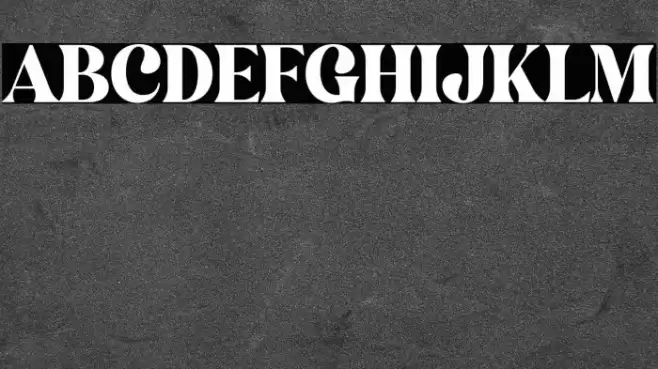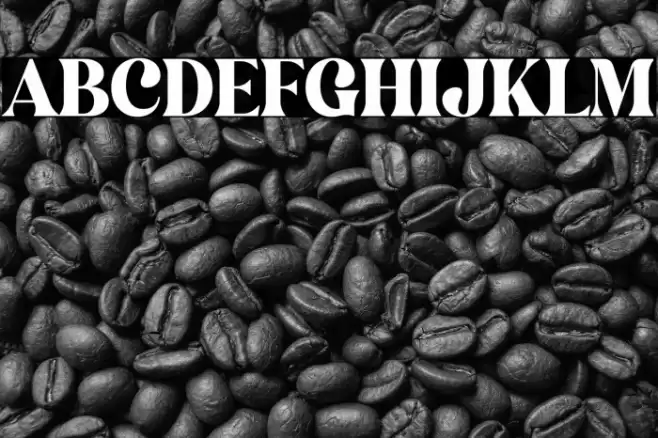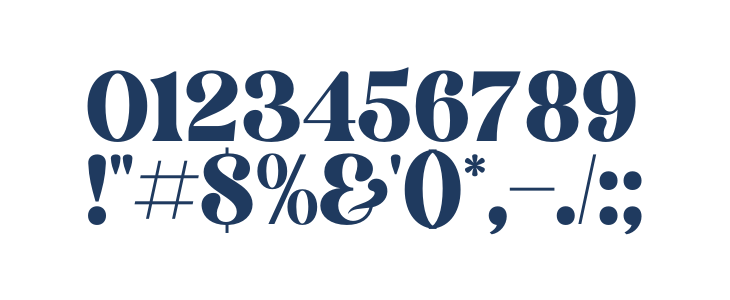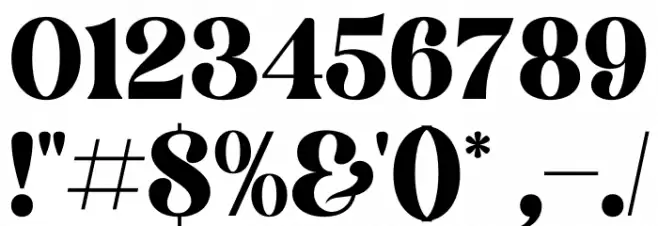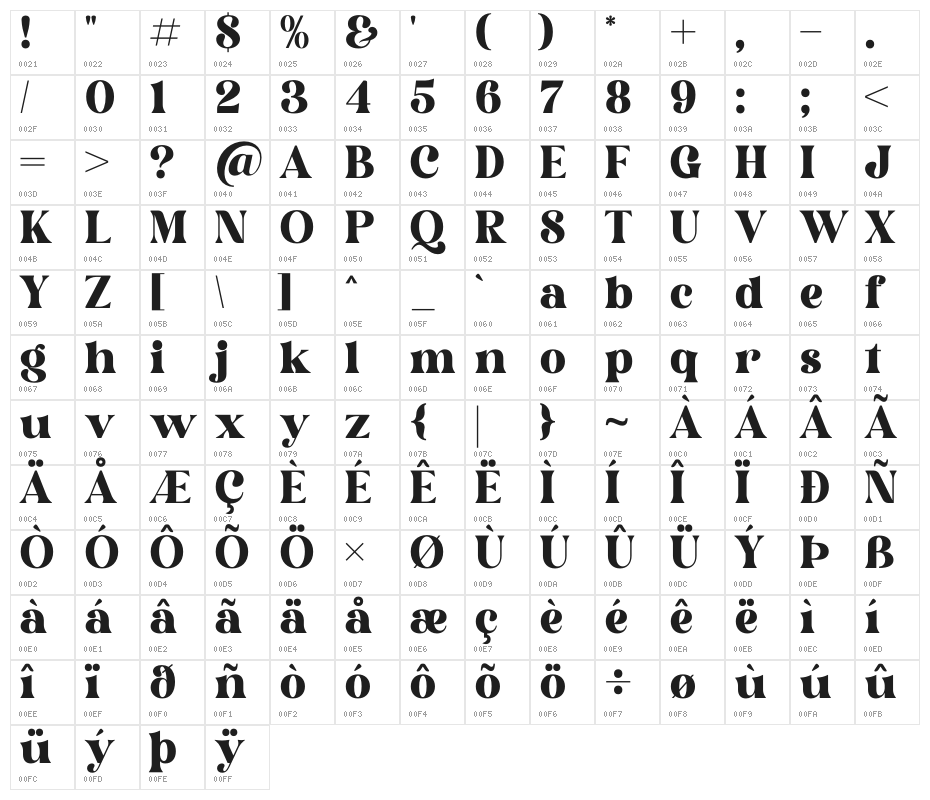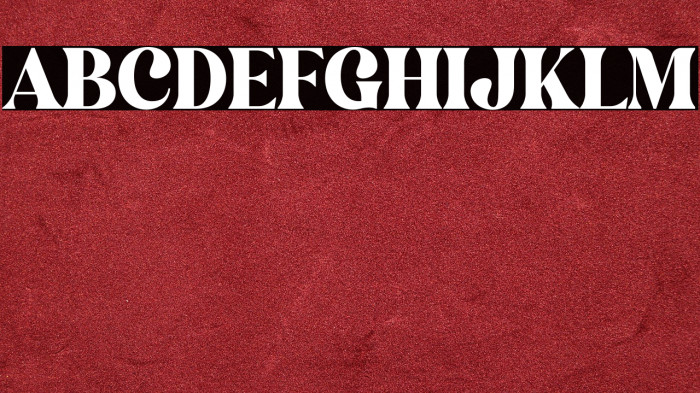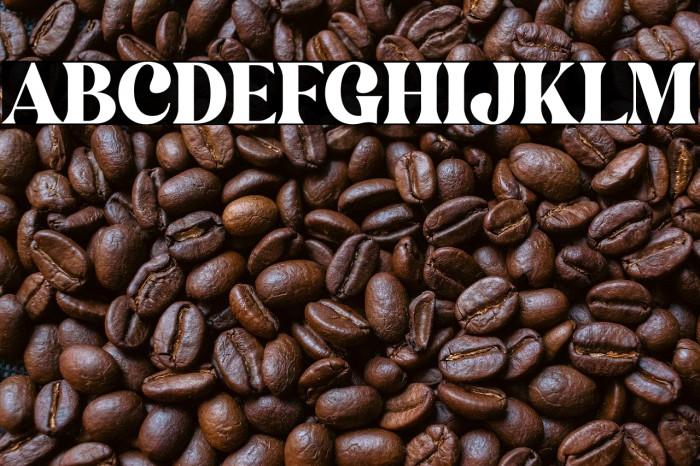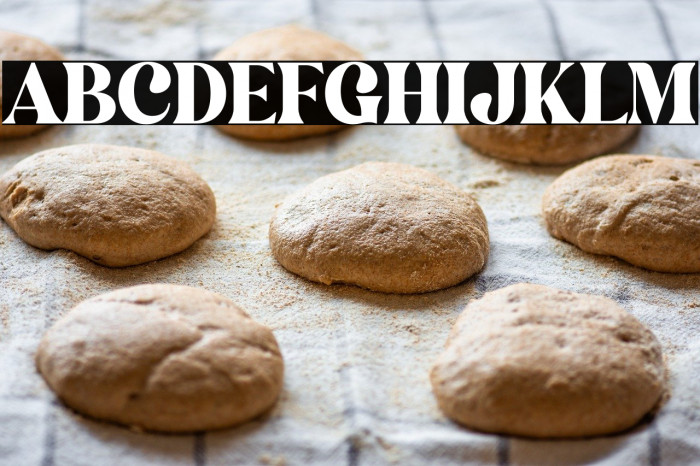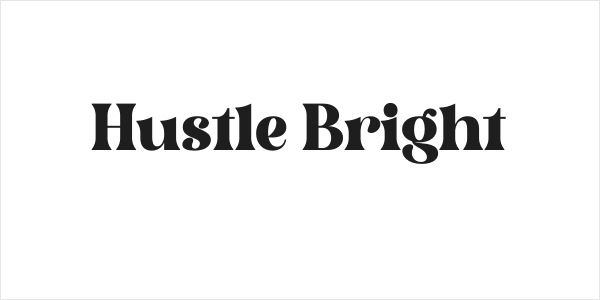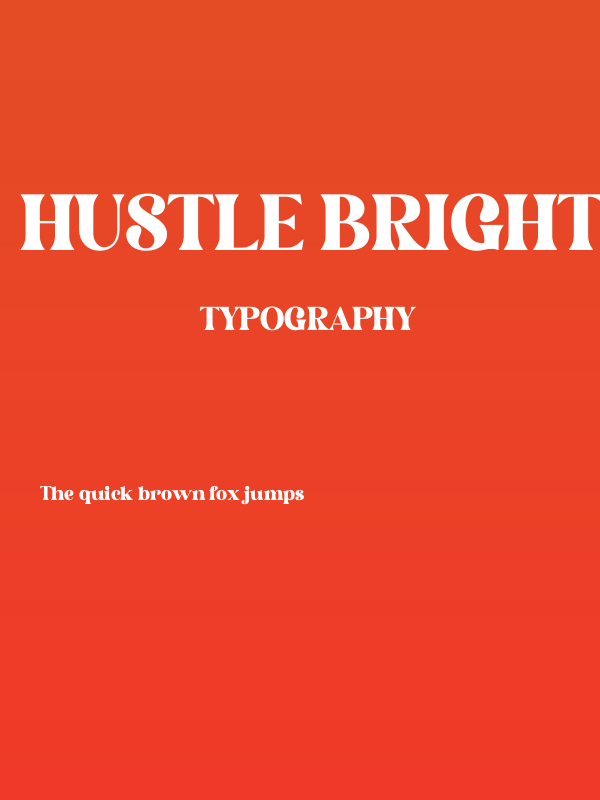
Hustle Bright Font
Hustle Bright Description
This font features a bold and dynamic style with a strong presence. The characters exhibit a high contrast between thick and thin strokes, giving it a dramatic and eye-catching appearance. The serifs are pronounced, adding a touch of elegance and sophistication. The uppercase letters are robust and commanding, while the lowercase letters maintain a consistent flow with slight curves that enhance readability. The numerals are equally bold, ensuring they stand out in any context. Special characters are designed with the same attention to detail, making them suitable for various design needs.
A bold, high-contrast serif font with dramatic strokes and elegant serifs from Uncategorized fonts.